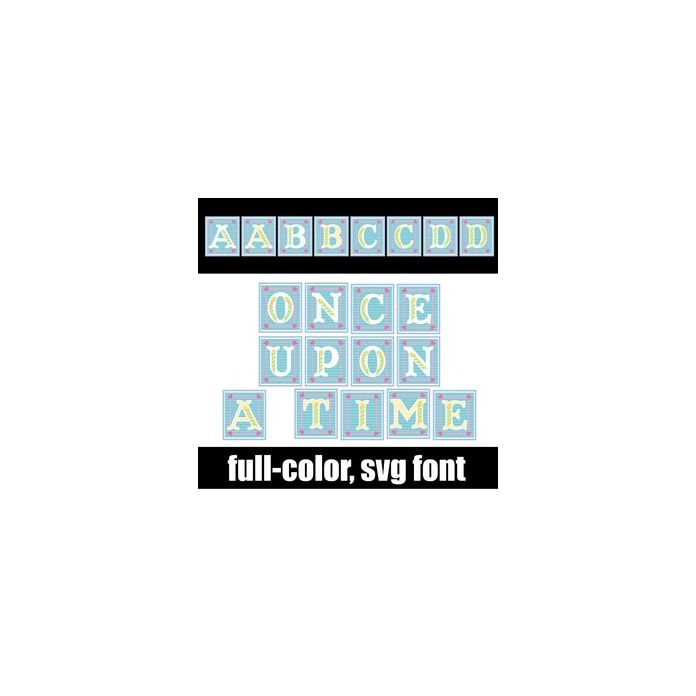
This full-color font features serif lettering and florals on illustrated storybook pages. There is an alt case w/ additional colors you can access through your system or Silhouette's glyph map.